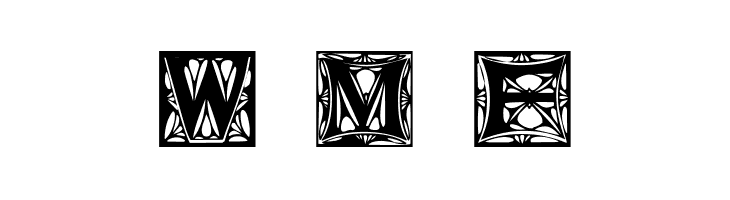
A bold, geometric font with intricate line patterns and rounded shapes.
Ornate decorative initials with floral motifs in a vintage style.
A decorative font with bold, rounded characters filled with floral patterns.
Cartoonish Easter-themed decorative font with bunny illustrations.
Ornamental display font with Easter egg illustrations as glyphs.
A bold, decorative font with a dotted pattern, perfect for eye-catching designs.
A playful, meat-themed font with bold, chunky letters and bone details.
A diverse collection of decorative fonts with culinary themes, perfect for eye-catching designs.
A bold, ethnic-inspired font with geometric and decorative elements.
A playful, bamboo-inspired font with a hand-drawn, cartoonish style.
A playful, bamboo-inspired font with segmented, rounded characters.
A bold, decorative font with intricate line detailing and a modern twist.
A playful and decorative font with floral and star motifs.